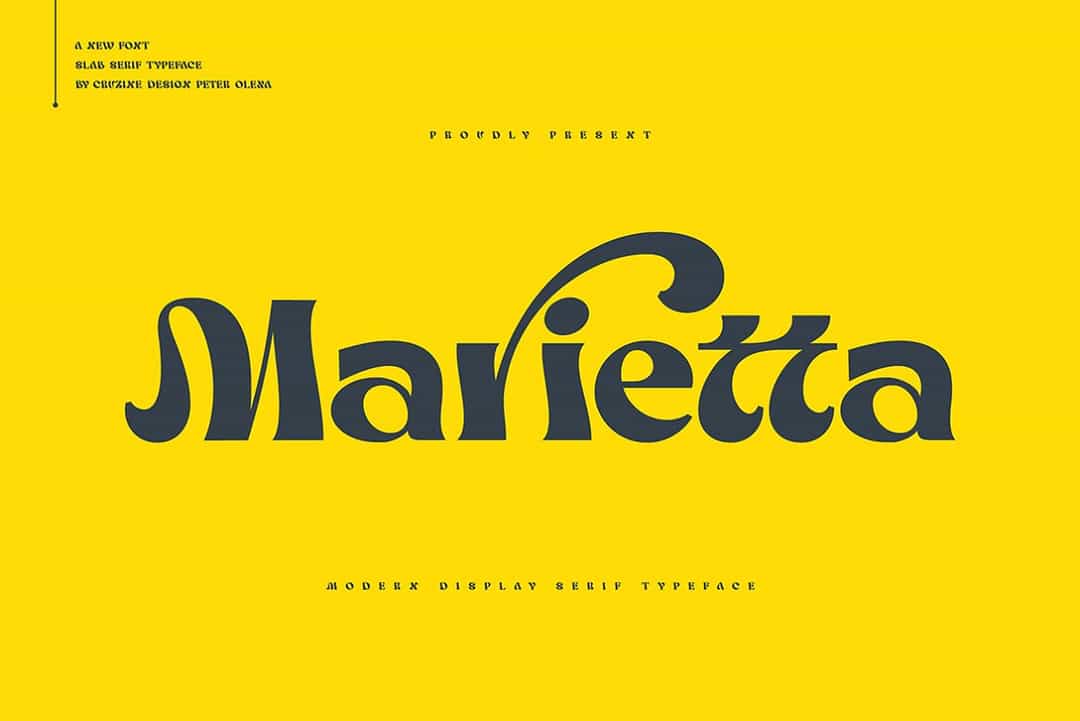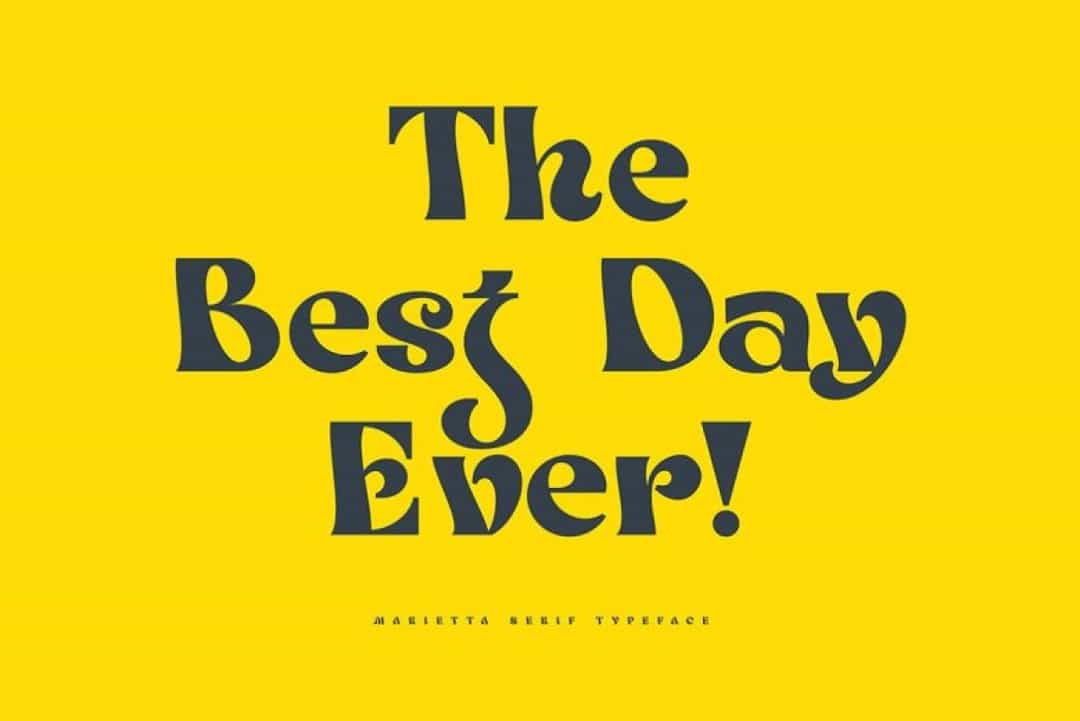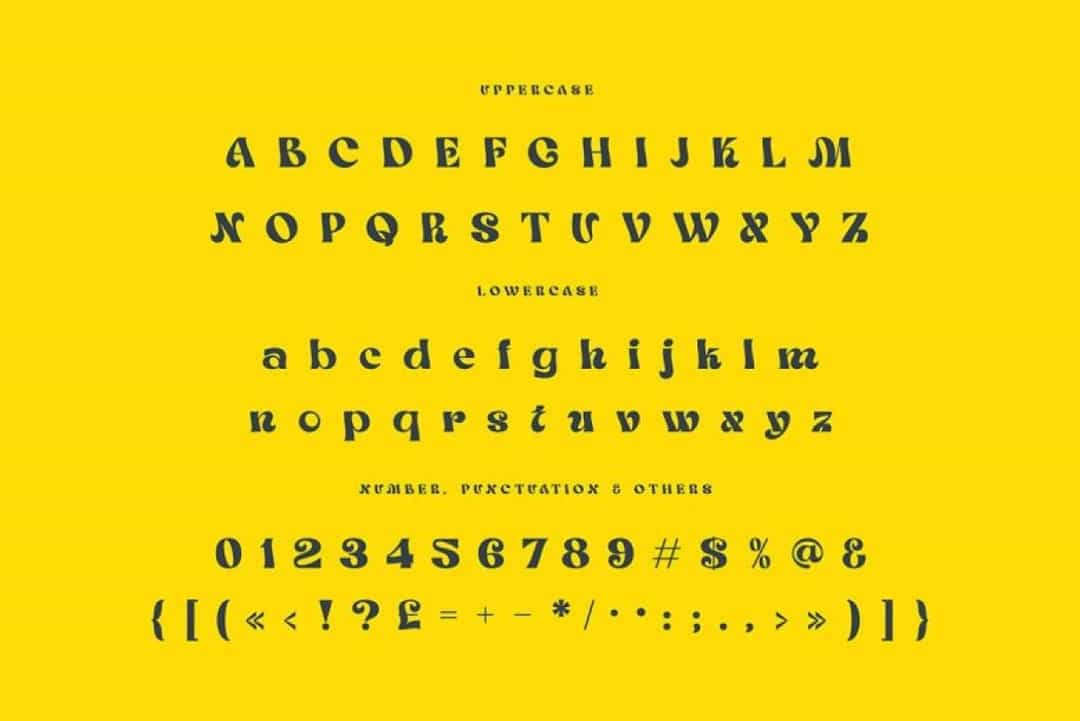
Marietta font is a trendy, groovy and modern style display serif font suitable for your fancy projects. With its beautiful artistic and fun style, this font is great for branding ventures of any kind – with various ligatures and alternates available you can easily design an original and distinct logo or header on your website! Don’t wait; get Marietta today and start creating some memorable branding projects. Enjoy it!